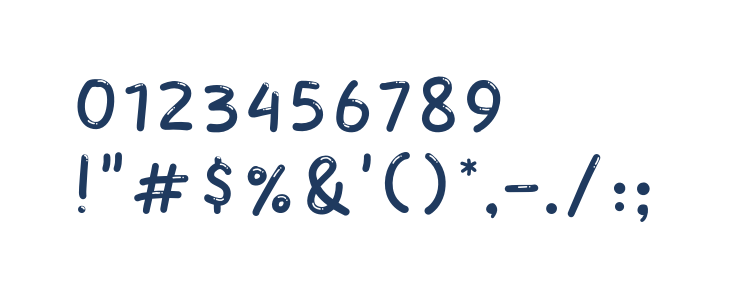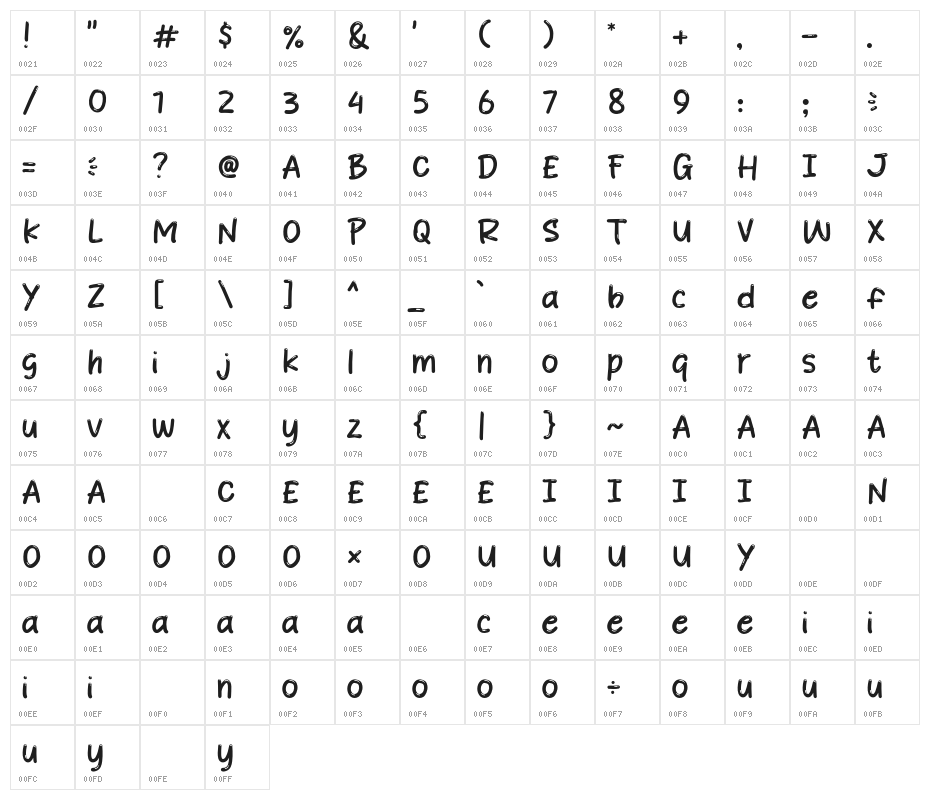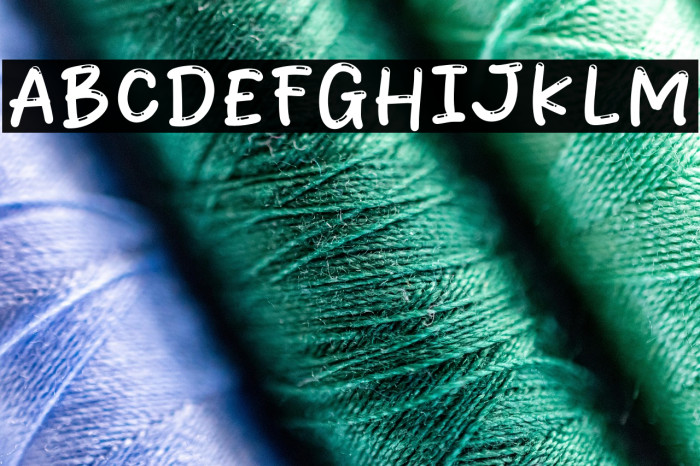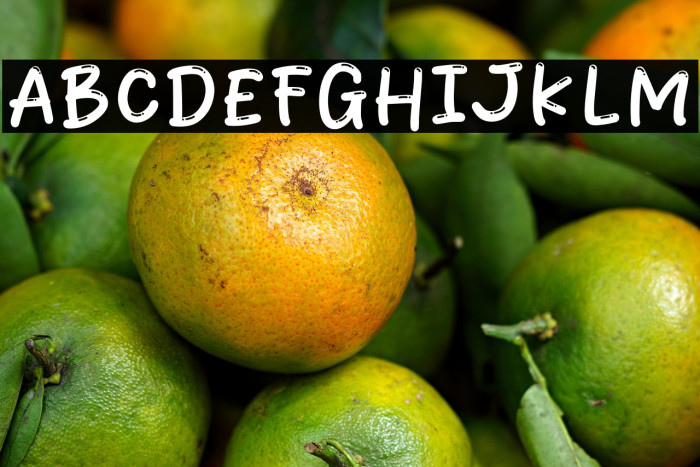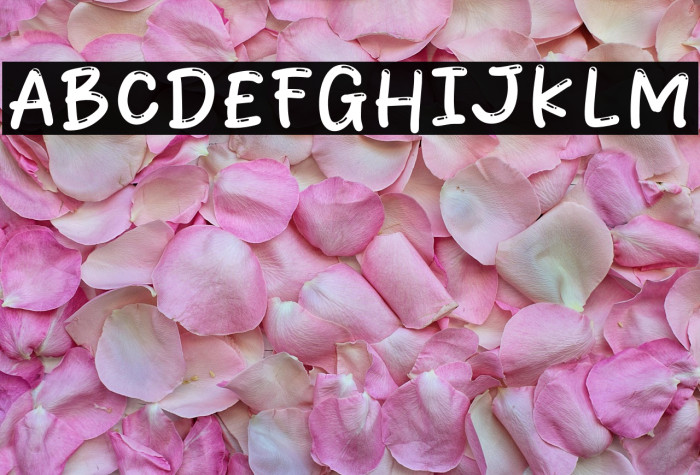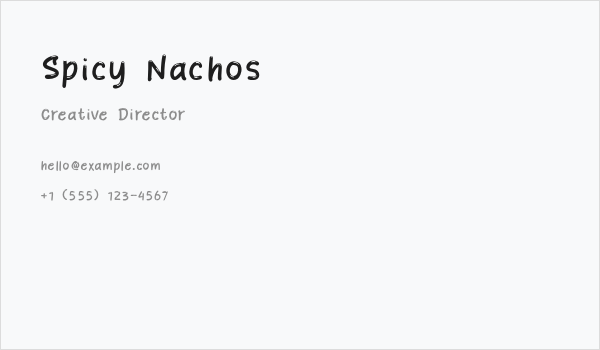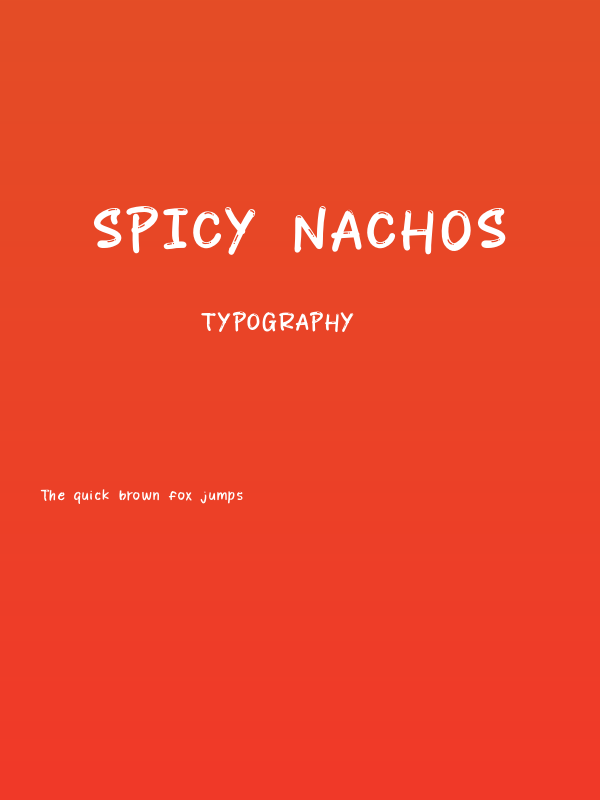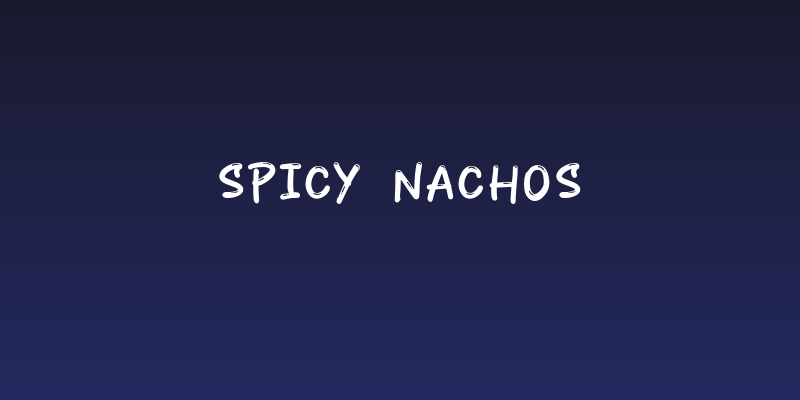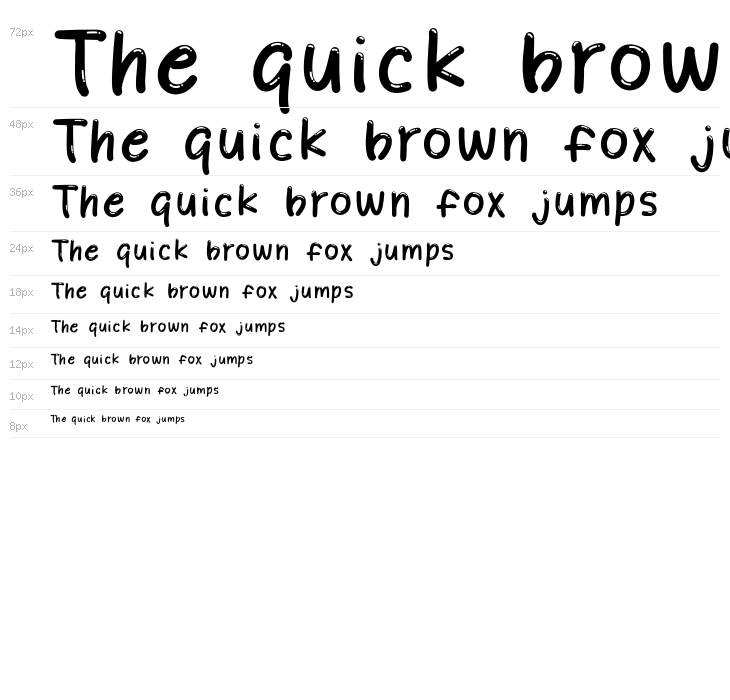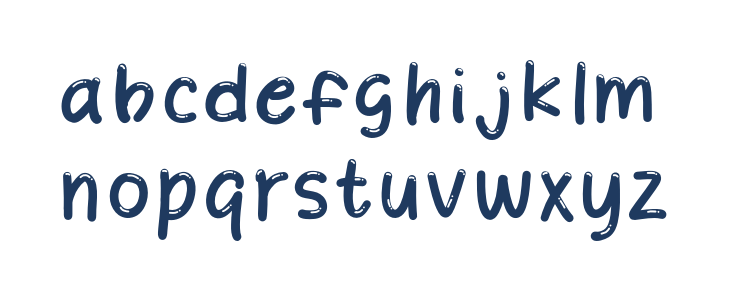
Spicy Nachos Font
Spicy Nachos Description
This playful and energetic font features a handwritten style with bold, rounded strokes that give it a lively and informal appearance. The characters are slightly irregular, adding a personal touch and a sense of spontaneity. The uppercase and lowercase letters maintain a consistent style, while the numerals and special characters complement the overall design. The font's boldness and unique character shapes make it stand out, making it ideal for projects that require a fun and approachable aesthetic.
| Proposed Projects | Great for children's books, playful branding, casual invitations, and social media graphics. |